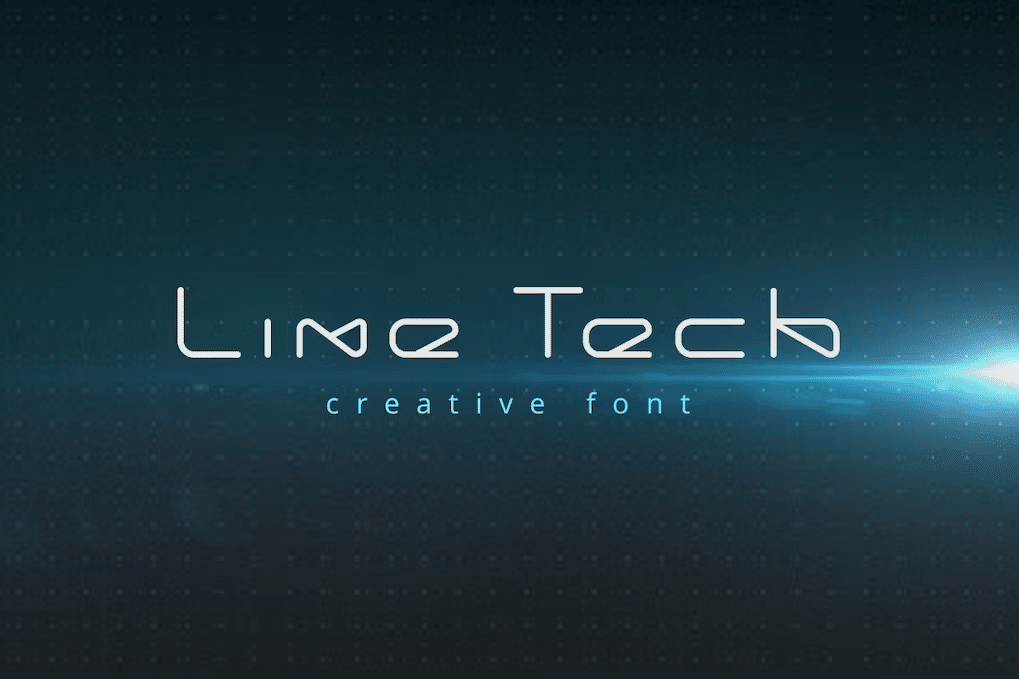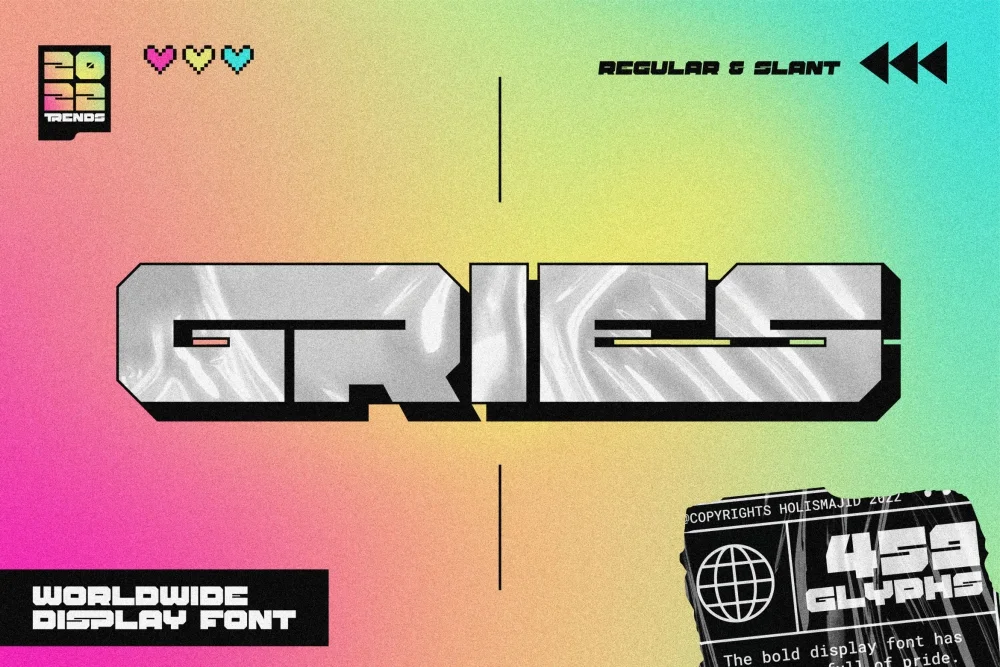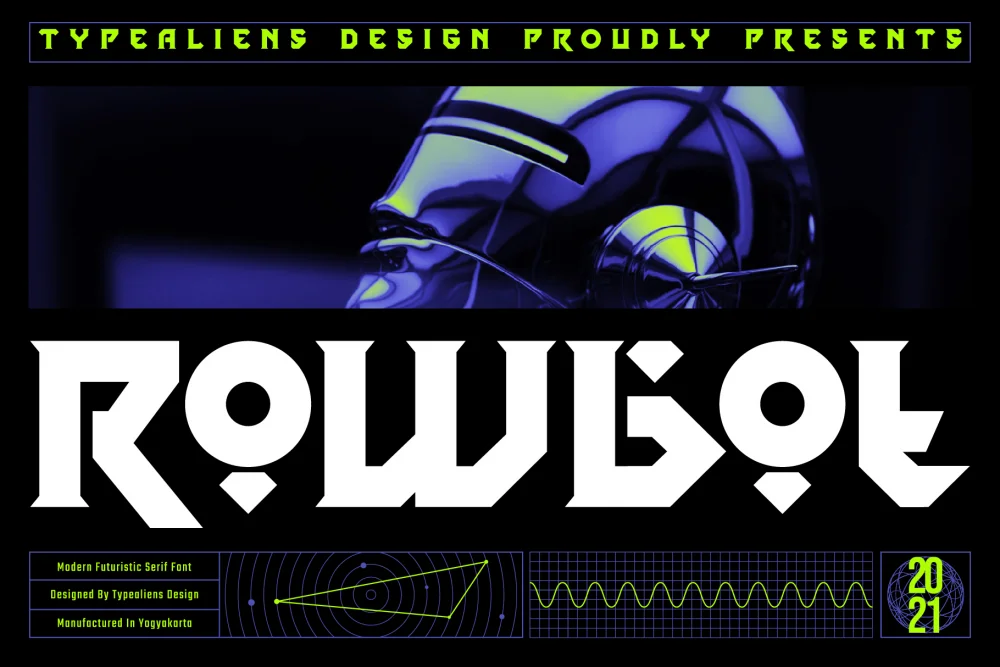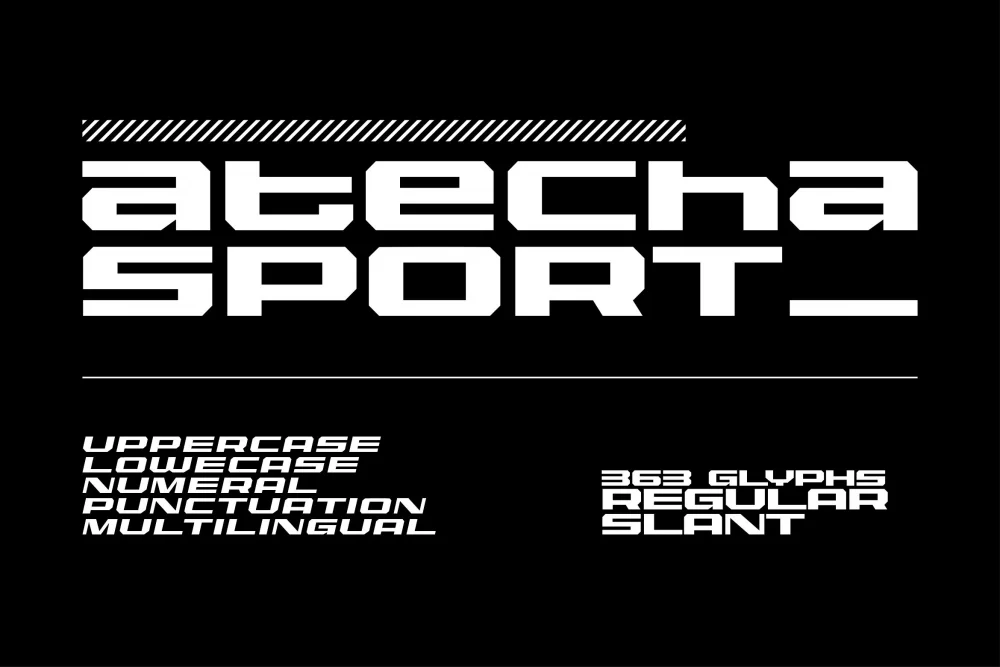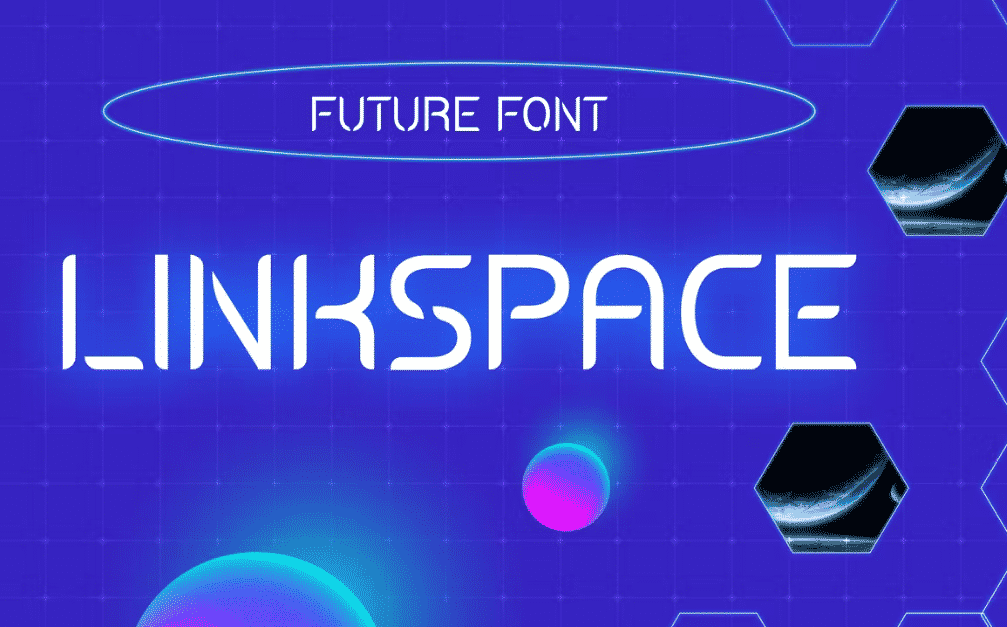
The most technological and futuristic typefaces can give your projects a fresh touch of individuality. However, many choices are available online, making it challenging to select the best ones.
So, we’re here to assist you in reducing your options and locating the best tech fonts for your science fiction-themed projects.
Typefaces called tech fonts can be used in any of your futuristic design projects. Since there are numerous sci-fi subgenres, we’ll explain the fonts we’ve picked as we go.
To assist, we cut through the noise and give you the best sci-fi and tech typefaces.
With any of the options on our list, you’ll say, “Beam me up, Scotty.” You’ll add a new level of flair, excitement, and professionalism to your work – perfect for graphic design, branding, and logo design.
10 Best Tech Fonts (Sci-Fi, Hi-Tech, Futuristic & Techno Fonts) – Free & Premium
There are so many different options out there if you are looking to add techno or sci-fi ambiance to your latest project. While having so many options is a good thing, it can also have a downside. While there were many others we fell in love with, these are the best tech fonts, perfect for technology & sci-fi projects.
- Blackpast Futuristic Font
- Invasible Modern Typeface
- Hacklife- Font Style Tech
- Cyber- Technology Font
- Futuristic Technology Font LineTech
- Auranouva – Techno Font
- Galactus
- Nebula
- Futuristic Techno Space Font
- Netron
Top 31+ Free Futuristic Sci-Fi & High Tech Fonts
Let’s jump in to these top tech fonts!
1. Blackpast – Futuristic Logo Font
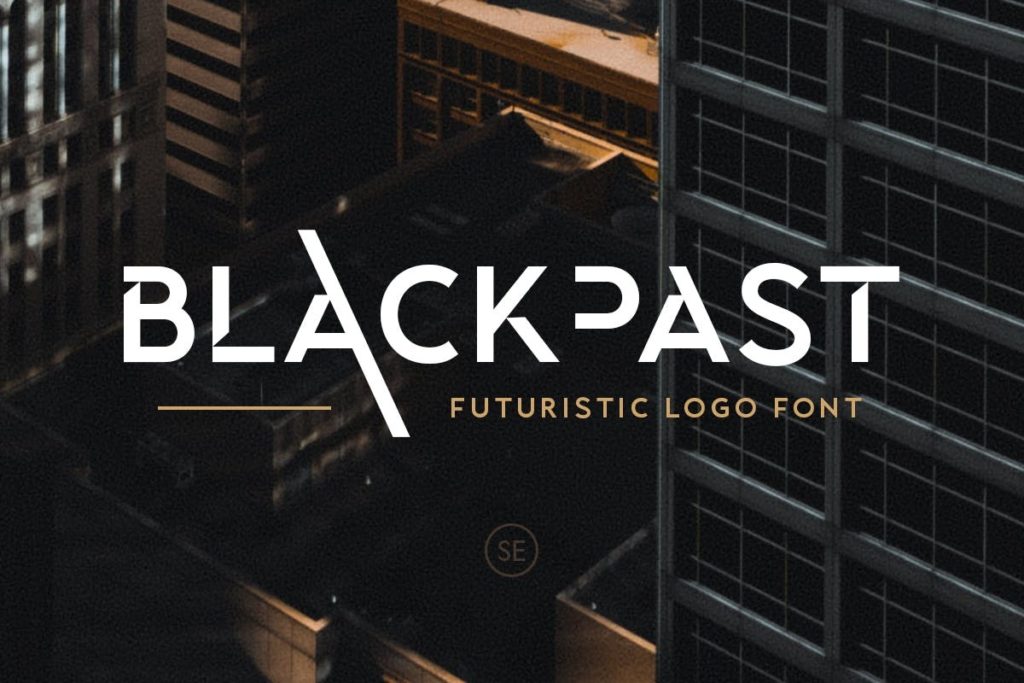
Typically, cities depicted in sci-fi hide a dark truth about civilization. Behind their skyscrapers, skyways, and nightlights, it was a dystopia all along.
We selected Blackpast since it perfectly captures the sci-fi vibe. Our assertion is precisely reflected by the text’s use of strobing strokes and the missing sections.
It features typical spacing and is an excellent option for giving your design a contemporary, futuristic feel. We tested it and discovered that it could be optimized for regular text and larger display settings. And it is accessible in both uppercase and lowercase characters.
That’s why if you want a perfect font for designing a futuristic logo, we highly recommend you check this out.
2. Invasible Modern Typeface
Characters frequently dress in neon hues in science fiction to set them apart from the futuristic nightlife.
Cyberpunk Edgerunners is a more current example of this. It’s where neon colors constantly stand out against the gloomy background.
We encourage Invasible because it makes your project stand out. Using this typeface for titles, magazine headlines, and flyers is strongly advised. Additionally, you can use it for posters or even neon installations. It works well for understated subjects like pop art, science fiction, and subdued future designs.
The font comes with more than 300 glyphs, and two different styles – inline and normal.
3. Hacklife- Font Style Tech
With a striking interplay of bold and thin lines, Hacklife – Font Style Tech makes a powerful visual statement. This font’s unique design, reminiscent of a ‘matrix’ aesthetic, sets it apart as an ideal choice for tech-themed projects.
This font exudes a futuristic feel that can elevate any tech- or computer-themed design project to the next level.
What truly sets Hacklife apart is its unique design, where it expertly blends thick and very thin lines. This dynamic combination creates a visual contrast that immediately draws the eye.
We can say that Hacklife’s edgy and geometrical design is a testament to its modernity and innovation.
Whether you’re crafting sleek user interfaces or dynamic website headers, this font’s geometric precision is our best recommendation for you.
4. Cyber- Technology Font
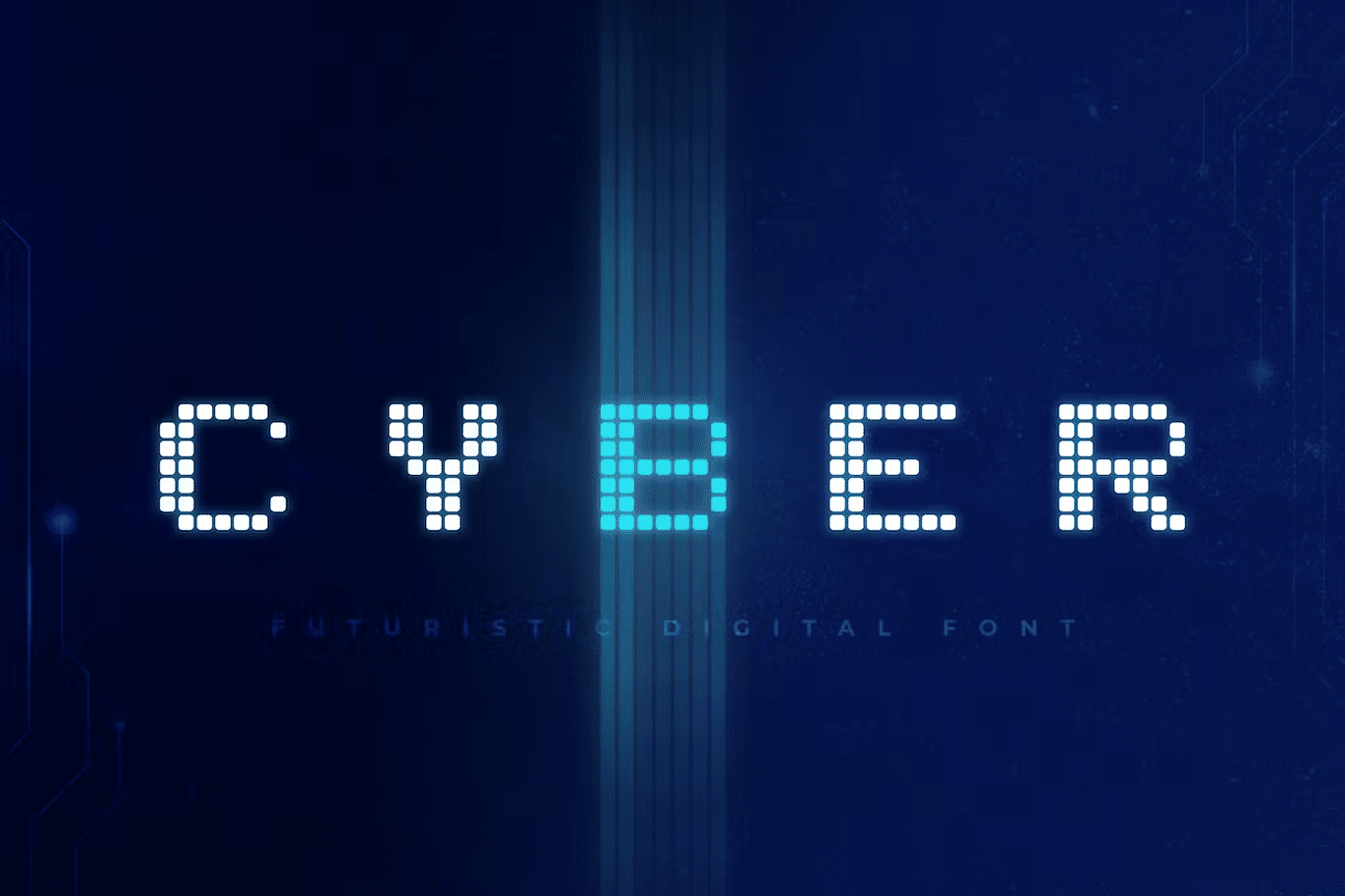
We were positively impressed by Cyber-Technology Font with a tech-inspired design that resembles cubes seamlessly fused to form letters.
This all-capslock typeface exudes a cutting-edge and futuristic aura, with each character meticulously constructed from modular building blocks. This unique construction imparts a sense of digital architecture and innovation to your designs, creating an unmistakable visual impact.